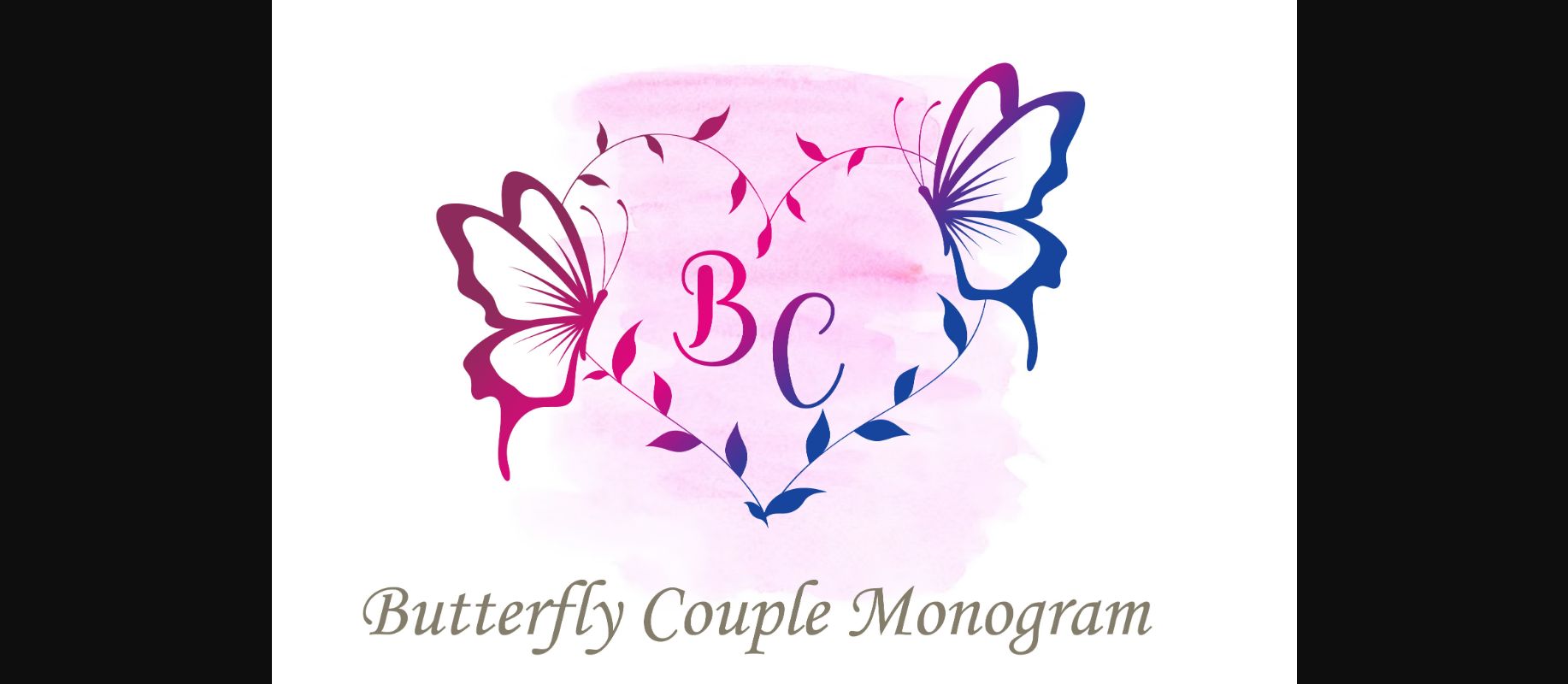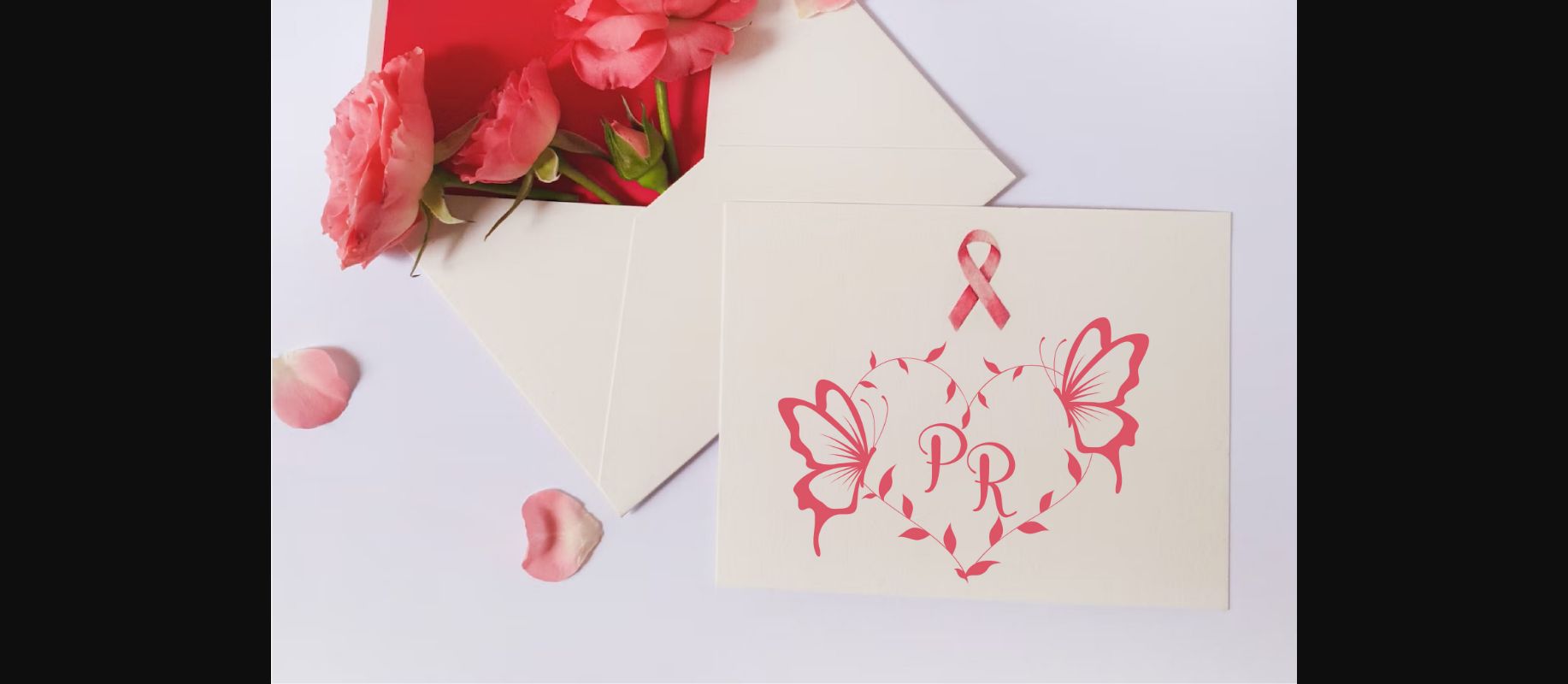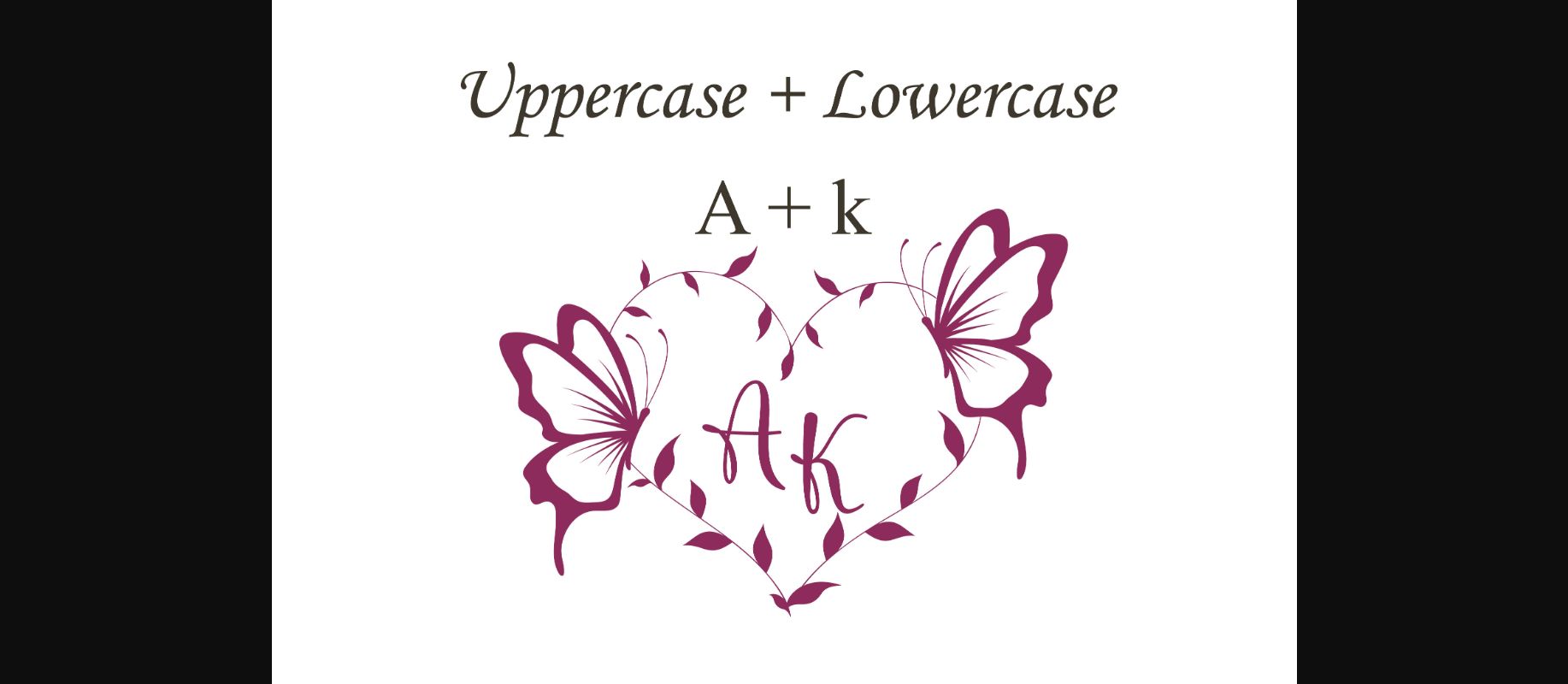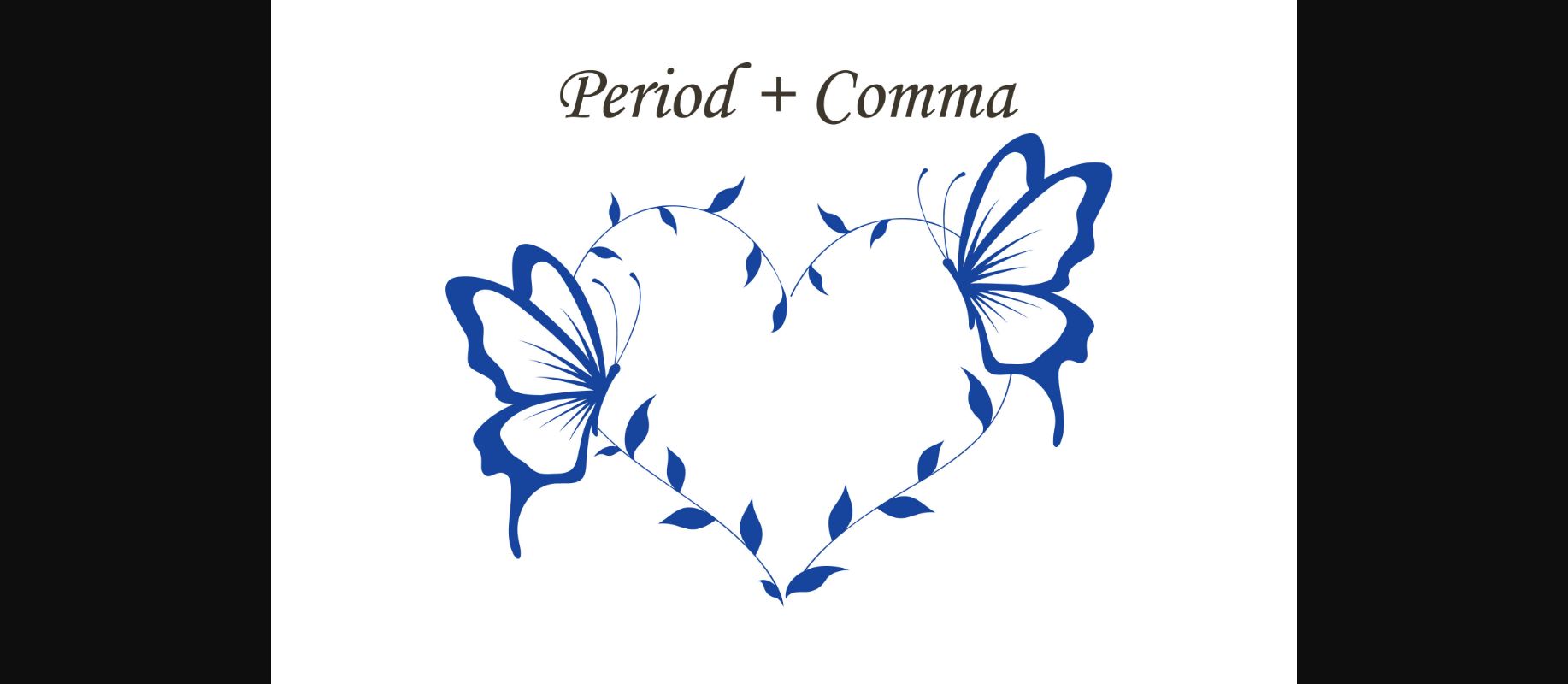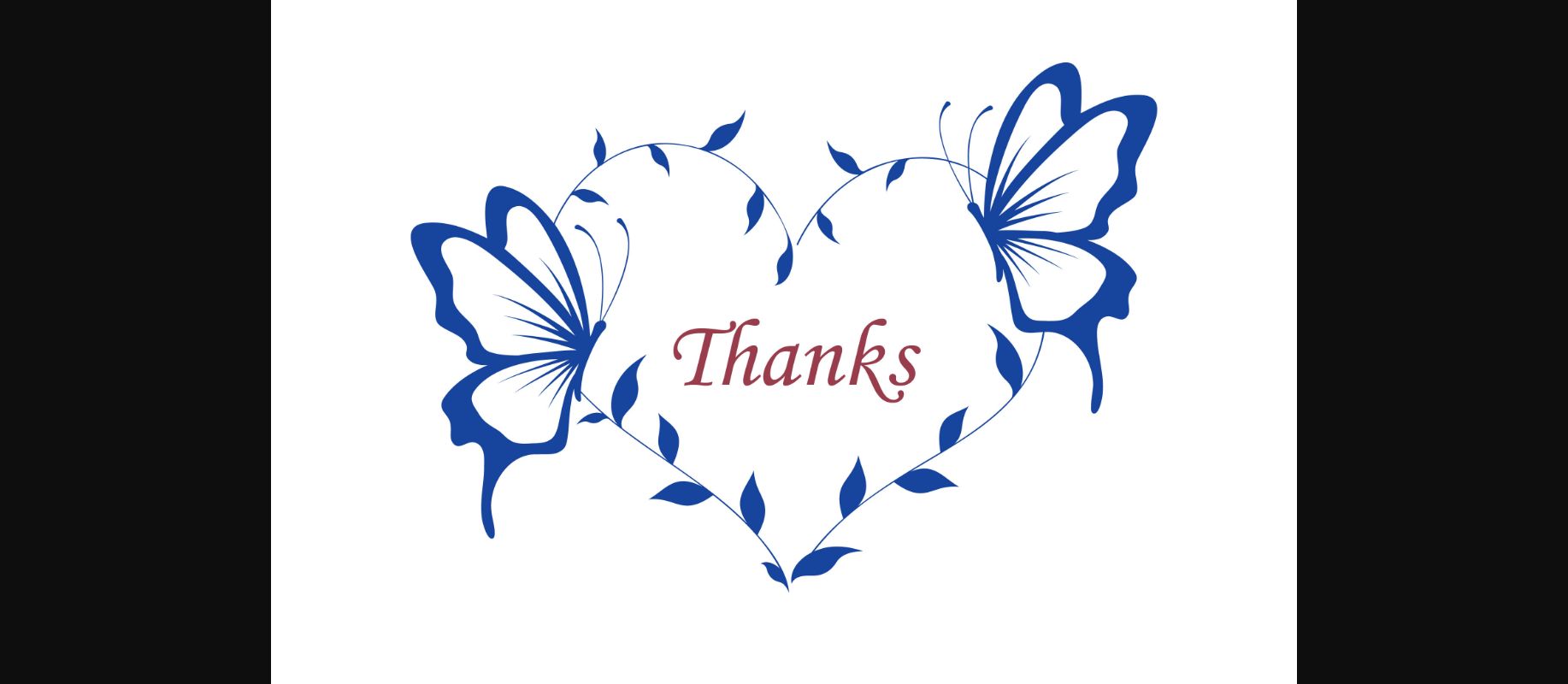
Butterfly Couple Monogram Font
About Butterfly Couple Monogram Font
Butterfly Couple Monogram is an elegant decorative font, featuring lovely ornaments. Fall in love with its authentic feel and use it to create gorgeous wedding invitations, beautiful stationary art, eye-catching social media posts, and cute greeting cards.